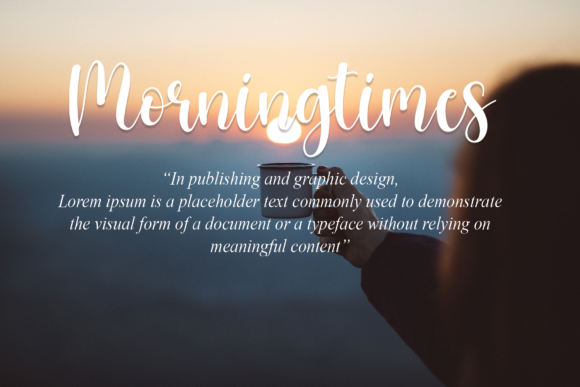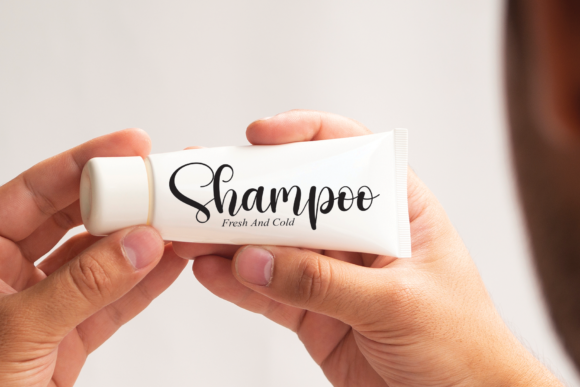
Black Signature Font
db-ku.com - Script & Handwritten -- Black Signature is a sweet and cursive handwritten font. This gentle font will look gorgeous on a variety of design ideas. It will add a joyful and romantic touch to each of your projects!